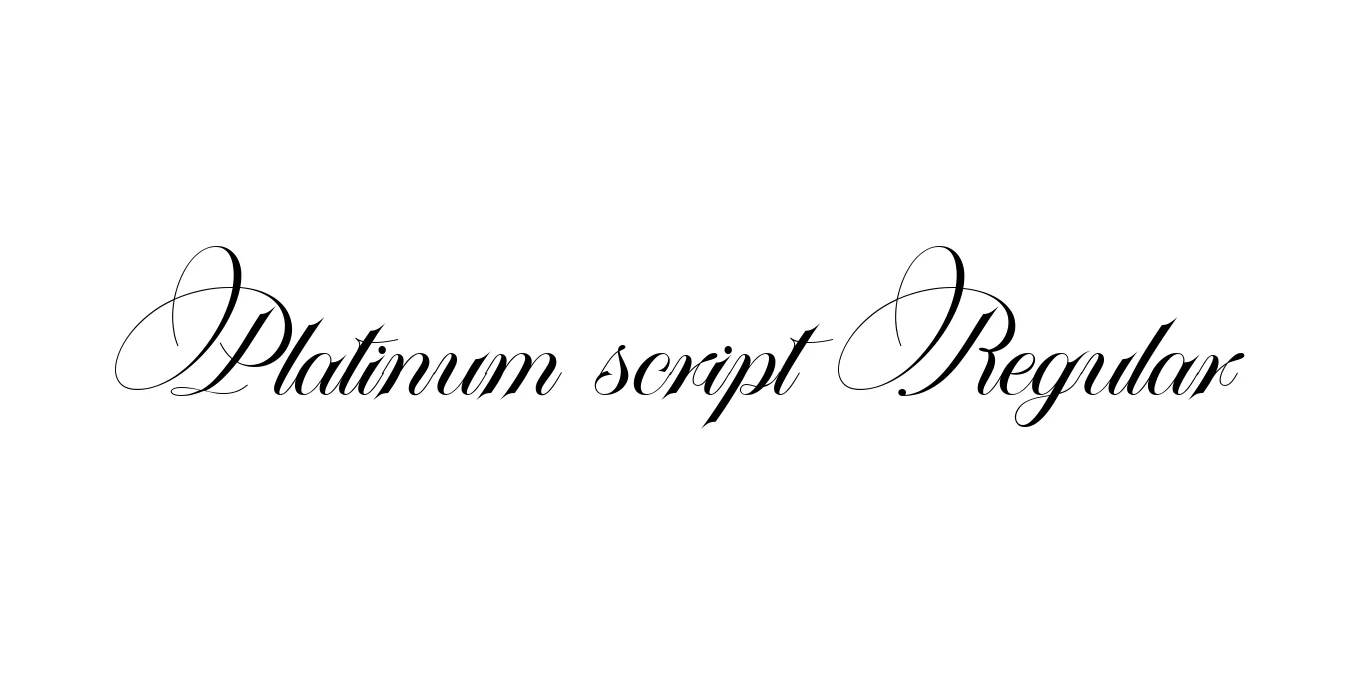
Platinum script Regular
Designed by Intellecta Design
Platinum Script Regular is a masterfully crafted calligraphic typeface that captures the essence of traditional copperplate lettering. This font is characterized by its high-contrast strokes and fluid, sweeping swashes that provide a sense of movement and grace. Developed to emulate the precision of a master penman, it stands as a testament to the beauty of formal handwriting, making it an essential tool for designers who aim to instill a sense of heritage and sophistication into their creative projects.
The design features of Platinum Script include intricate flourishes and a rhythmic connection between characters that ensures a seamless flow across words. Its timeless appeal makes it highly versatile, transitioning effortlessly from high-end corporate branding to delicate personal stationery. Whether used for headlines or decorative accents, this font adds a layer of luxury and refinement that is difficult to replicate with standard digital typefaces.
Platinum script Regular Best Uses
Perfect for creating romantic and formal wedding stationery and RSVP cards.
Excellent for high-end fashion, jewelry, and beauty logos that require a sophisticated touch.
Adds a personalized and artistic flair to holiday or special occasion cards.
Ideal for formal documents and awards that need an authoritative yet elegant appearance.